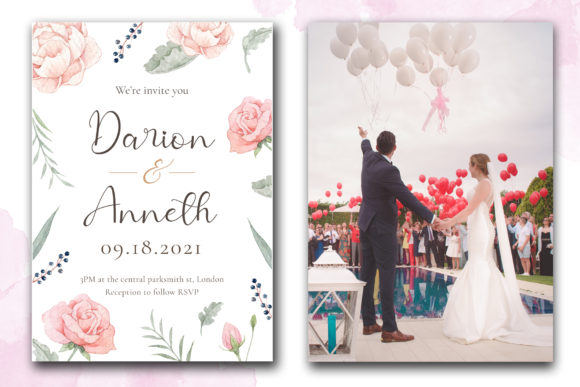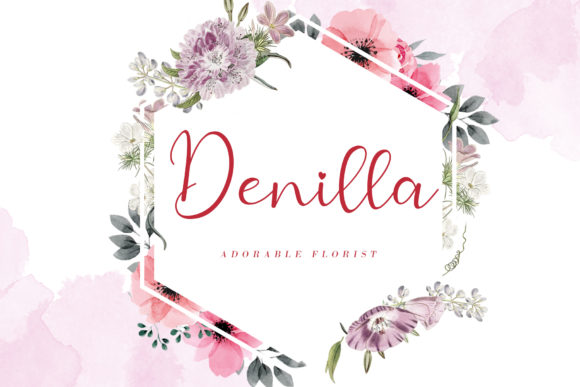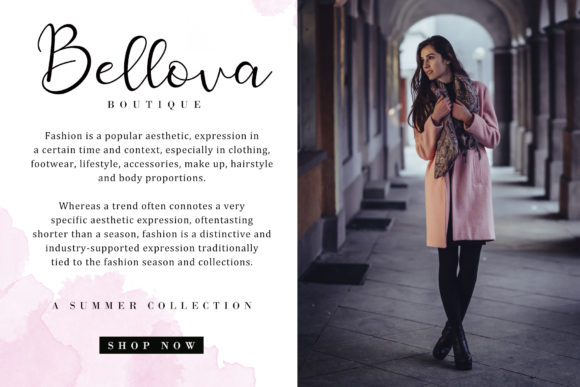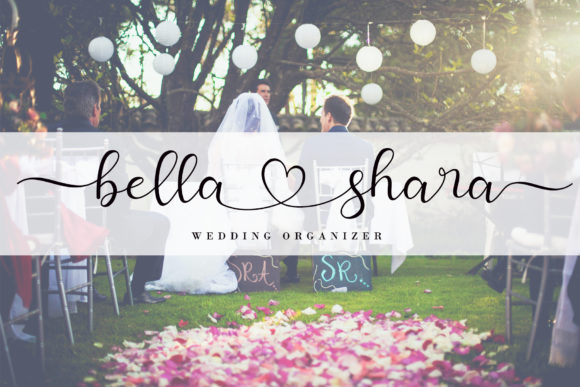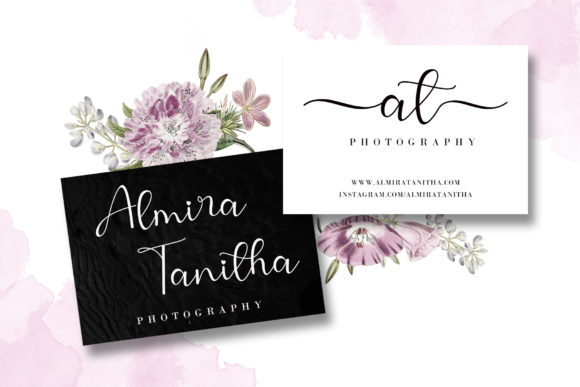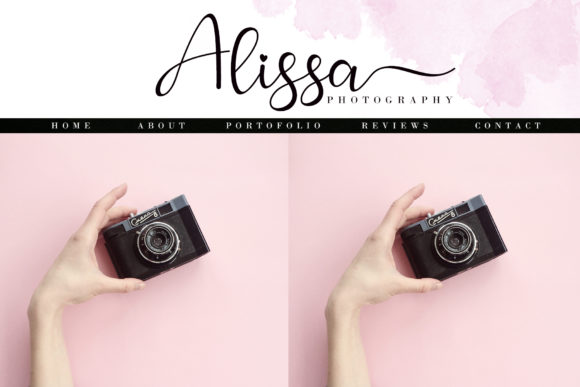
Introduction to Hello Selly Font
Hello Selly is an elegant and flowing handwritten font.
It is PUA encoded which means you can access all of the glyphs and swashes with ease It features a varying baseline, smooth lines, gorgeous glyphs and stunning alternates.